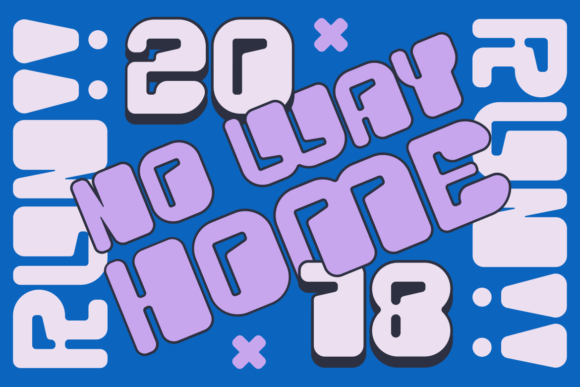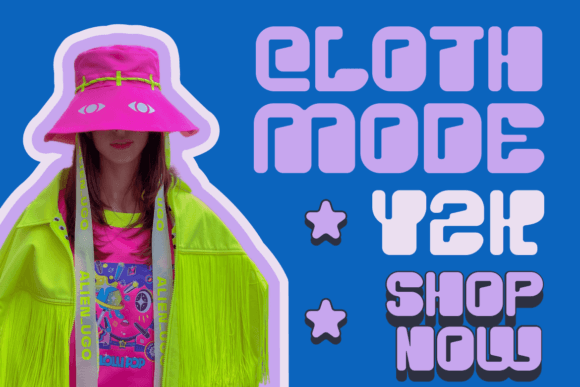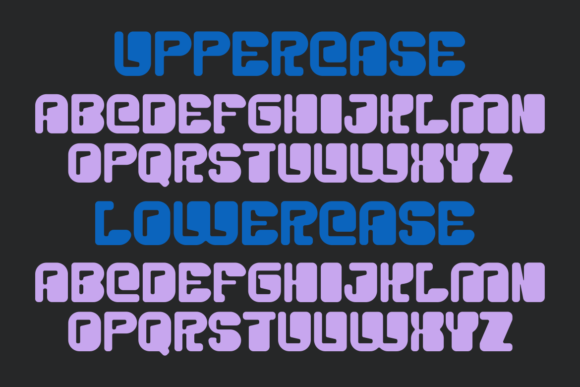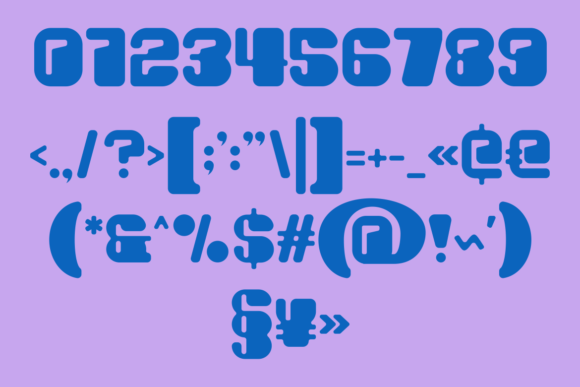
Introduction to Jawbyte Font
Remember the rush of excitement when you first booted up your old computer and saw those iconic pixels dance across the screen? The early 2000s were a time of rapid technological advancement, and the aesthetic of the era continues to captivate designers and creatives today.
One font that perfectly captures the essence of this bygone era is the Jawbyte Font, a stunning visual representation of the Y2K style. This design resource is a treasure trove of futuristic flair, incorporating elements like old computer displays, neon lights, and geometric shapes that transport you back to a time of dial-up internet and beepers.
For designers looking to add a touch of retro futurism to their creative projects, the Jawbyte Font is an invaluable asset. With its high-quality design and transparent background, it’s the perfect addition to any visual project, from logos to graphics. And the best part? It’s available for free download, making it an accessible resource for designers of all levels.
Key Features of Jawbyte Font
- High-quality design resource for creative projects, ideal for logos, branding, and typography.
- Transparent background, making it easy to overlay on any image or background without any distracting edges or borders.
- Available in a range of sizes, from 16px to 128px, allowing designers to scale the font to suit their specific design needs.
- High-resolution design, with a minimum resolution of 300 DPI, ensuring crisp and clear text even when scaled up or printed.
- Unique, modern design aesthetic that sets it apart from other fonts, making it a great choice for designers looking to add a touch of creativity to their projects.
Honest Review: Jawbyte Font
I recently stumbled upon the Jawbyte Font and decided to give it a try for my latest design project. The first thing that caught my attention was its unique and playful style, perfect for adding a touch of whimsy to my creative project.
- ✨ High-quality design: The Jawbyte Font is incredibly detailed and well-crafted, making it perfect for any design resource.
- ✨ Transparent background: The font’s transparent background makes it easy to use on any background, giving me complete creative control over my design.
While the Jawbyte Font is an excellent addition to any design arsenal, there are a few limitations to consider:
- ⚠️ Limited font styles: The Jawbyte Font only comes in a few different styles, which may limit its versatility for certain design projects.
- ⚠️ Not ideal for formal designs: The font’s playful style may not be suitable for formal or professional designs, so be sure to use it judiciously.
Overall, I’m impressed with the Jawbyte Font and would definitely recommend it to designers looking for a fun and unique addition to their design resources.
Using Jawbyte Font in PowerPoint/Word
Open PowerPoint or Word and select the Jawbyte Font from the font library. You can use it to create engaging presentations, reports, and documents. To get the most out of the font, use it in combination with a high-quality image or graphic.
Tips for Getting the Most Out of Jawbyte Font
To get the most out of the Jawbyte Font, use it in combination with a transparent background and high-quality images. Experiment with different font sizes and combinations to achieve the desired effect. Additionally, consider using the font in conjunction with other design elements, such as shapes and icons, to create a visually appealing design.
Is the Jawbyte Font suitable for print projects, or is it only for digital use?
The Jawbyte Font is suitable for both print and digital projects. It’s a high-quality font that can be used in various print materials, such as business cards, brochures, and posters. However, it’s also great for digital projects, such as social media graphics, web design, and email marketing campaigns. The font is designed to be versatile and can be used in a variety of settings.